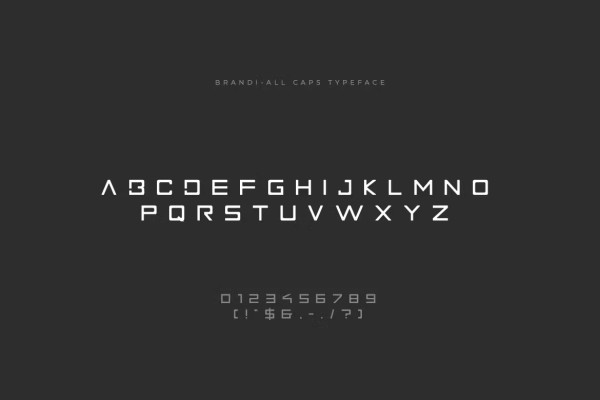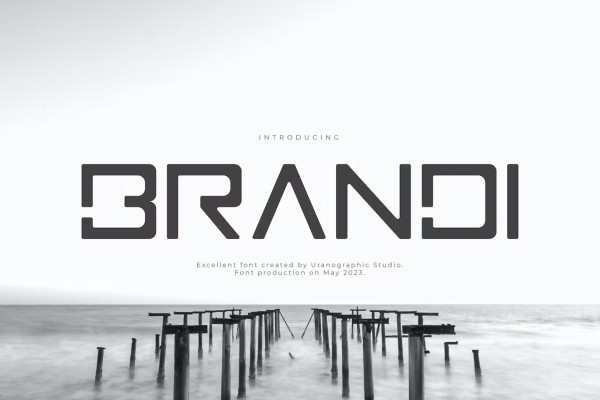
Brandi Font
Brandi Font, this font is perfectly suited for a wide variety of projects, such as signature, stationery, logo, wedding, typography quotes, magazine or book cover, website header, branding, packaging design, and more. Also, related branding or editorial design displays both masculine and feminine qualities.